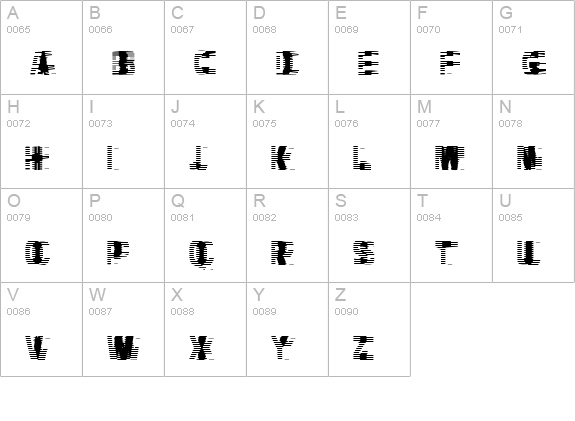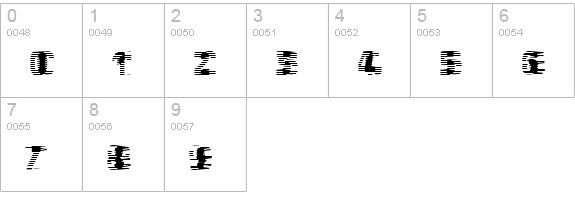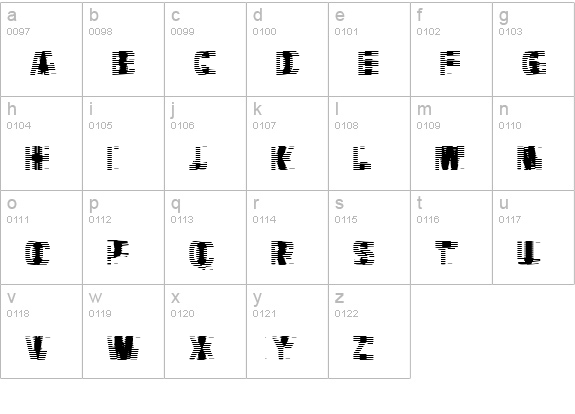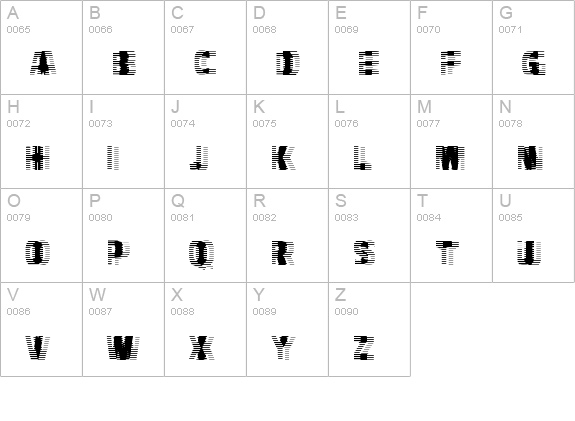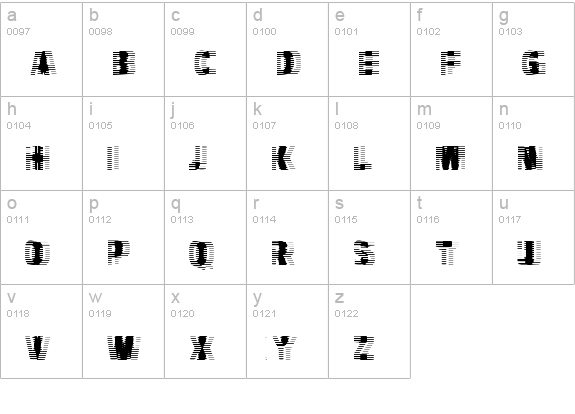
VTCBadHangover Regular Font Details
VTCBadHangover Regular is the standard, neutral variant in the VTCBadHangover typeface family \xE2\x80\x94 well suited to general body text, paragraphs, and standard typographic work.
VTCBadHangover Regular font is a captivating and versatile typeface that exudes a sense of edgy sophistication. Its bold, yet slightly quirky letterforms make it perfect for a wide range of design projects, from logo designs to headlines, posters, and more. This font features a unique blend of thick and thin strokes, adding a dynamic and energetic feel to any design. Its slightly rough edges give it a handcrafted and authentic look, making it ideal for projects that require a touch of personality. One of the best things about VTCBadHangover Regular font is that it is available for free. Yes, you read that right! This incredible font can be freely downloaded at FontsMarket.com, allowing you to add a touch of creativity to your projects without breaking the bank. Whether you're a designer looking for a font that stands out from the crowd or a small business owner in need of a fresh and eye-catching logo, VTCBadHangover Regular font is the perfect choice. Its versatility, combined with its affordability (or rather, lack thereof), makes it an excellent addition to any font collection. Don't miss out on the opportunity to enhance your designs with this stunning font. Head over to FontsMarket.com now to download VTCBadHangover Regular font for free and start creating unforgettable visuals that will leave a lasting impression.